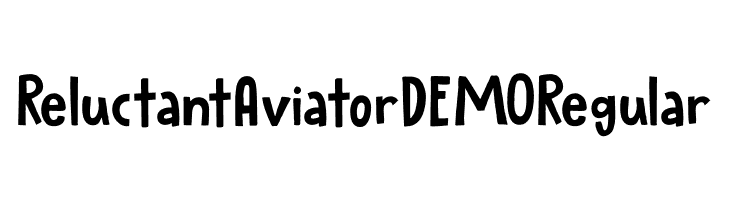
A playful handwritten font with a casual and friendly style.
A playful, bold font with a hand-drawn, whimsical style.
( Fonts by Thirtypath - Personal-use only. For commercial use please contact owner. )
A lively script font with fluid, continuous strokes and a personal touch.
( Fonts by Thirtypath - Personal-use only. For commercial use please contact owner. )
A bold, brush-style font with dynamic, hand-drawn strokes.
( Fonts by Thirtypath - Personal-use only. For commercial use please contact owner. )
A bold, brush-style font with dynamic, expressive strokes.
( Fonts by Motokiwo )
A bold, distorted font with a modern and edgy style.
( Fonts by Rochadi Sudarma [Rochart Studio] - Personal-use only. For commercial use please contact owner. )
A bold, brush-style font with dynamic strokes and artistic flair.
( Fonts by Rochadi Sudarma [Rochart Studio] - Personal-use only. For commercial use please contact owner. )
A bold, expressive handwritten font with a brush-like texture.
( Fonts by Muhammad Miad - By This font full version https://crmrkt.com/P45Ver - Personal-use only. For commercial use please contact owner. )
An ornate, decorative font with intricate swirls and high contrast, perfect for artistic projects.
( Logotype Font )
A modern, circuit-inspired font with bold, geometric lines and circular nodes.
( Qillo )
A bold, high-contrast serif font with sharp, angular serifs and elegant style.
( Fonts by Ardyana Types )
A playful handwritten font with dynamic strokes and a lively style.
( Fonts by Subectype & Orenari )
A playful, bubbly font with rounded, hand-drawn characters.